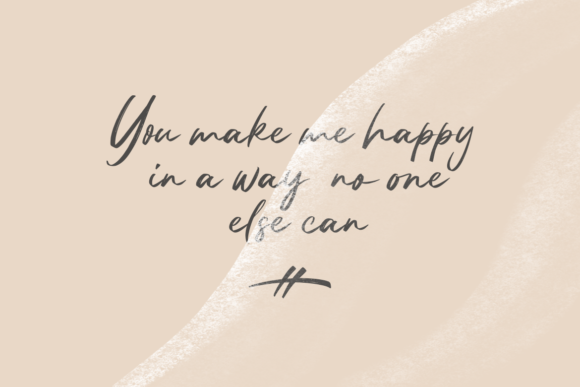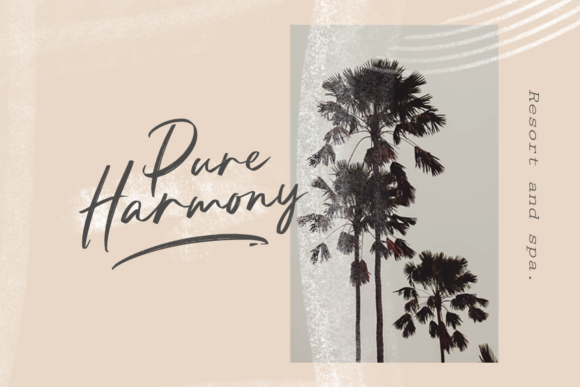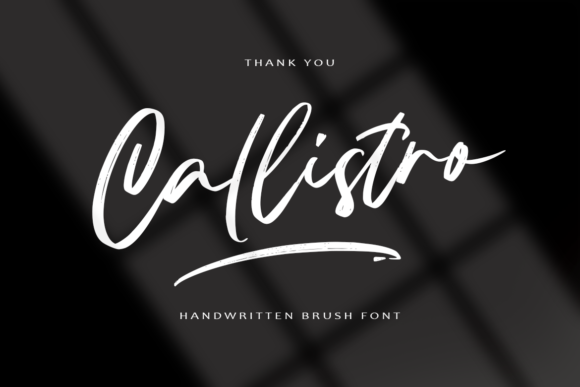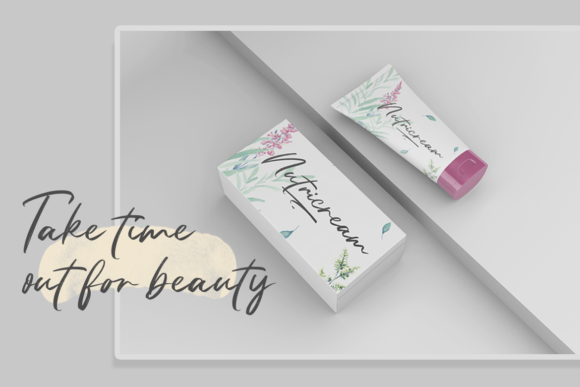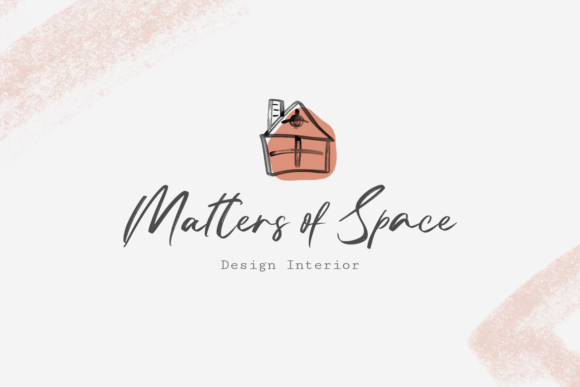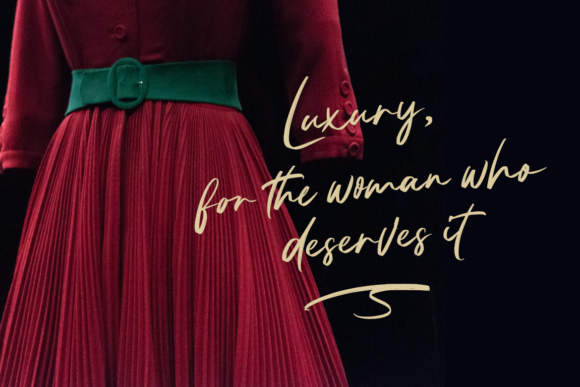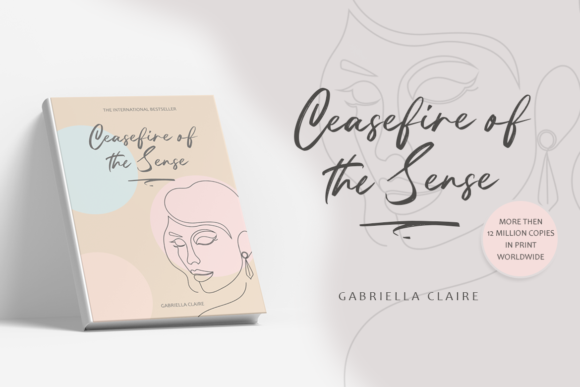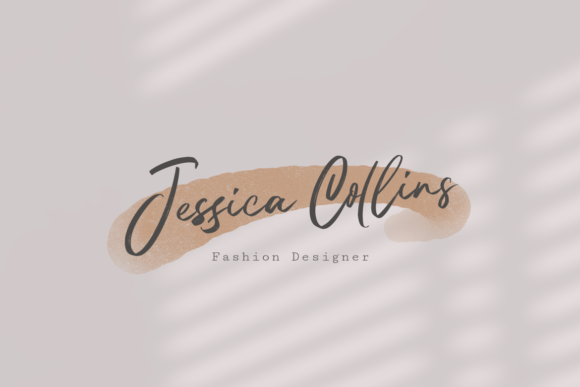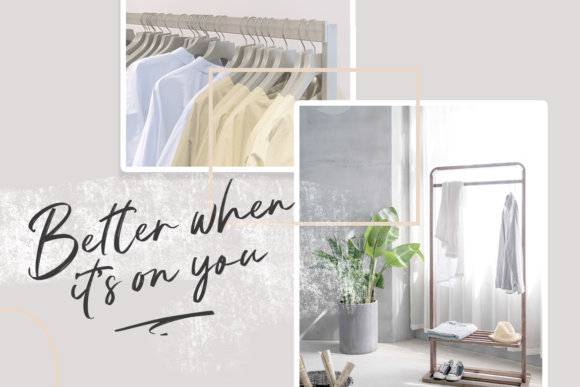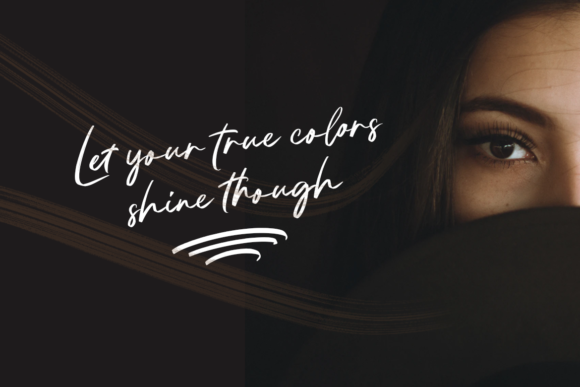
Callistro Font
About Callistro Font
Callistro is a lovely brushed calligraphy typeface with characters that dance along the baseline. It will add a luxury spark to any design project that you wish to create! This font is PUA encoded which means you can access all of the amazing glyphs and ligatures with ease!